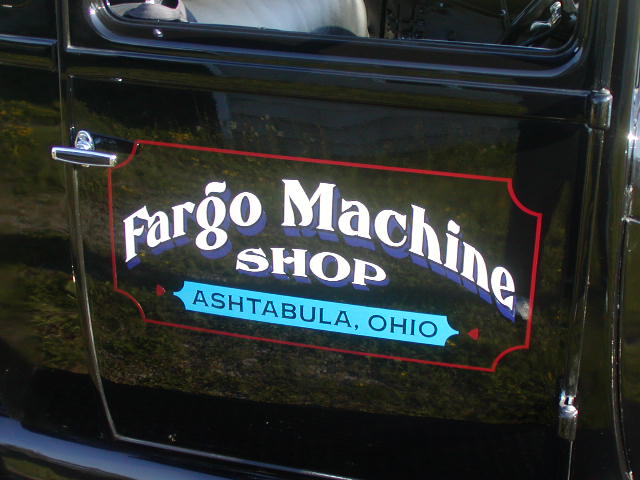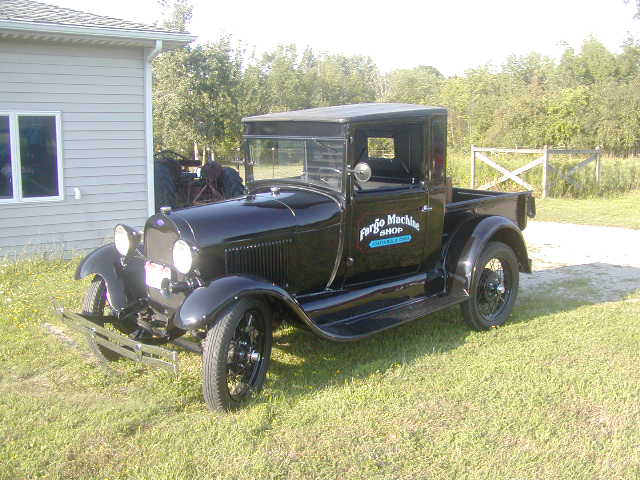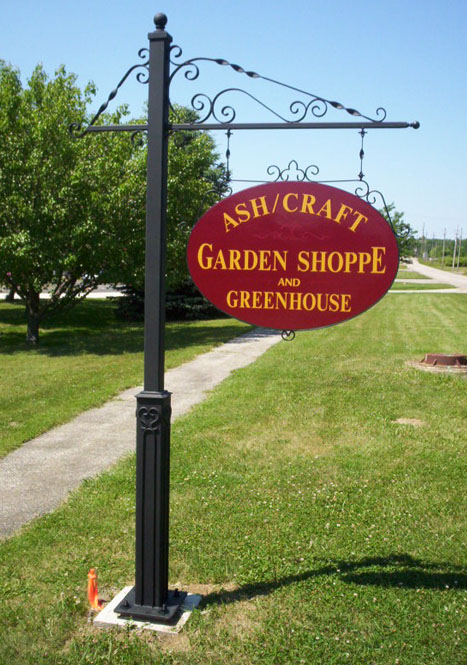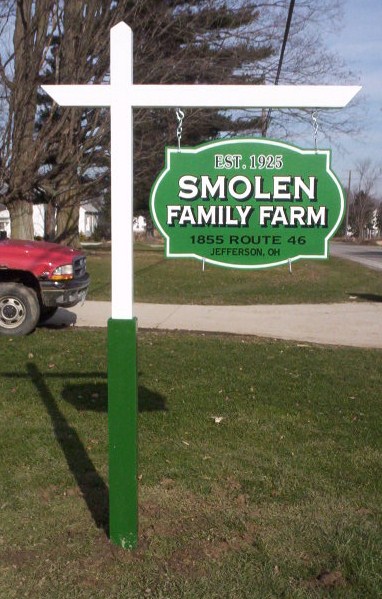
Wanted to say Hi to all... been reading thru this forum from the last page over the past few days. I got to the first the other day and signed in. Seems I was kicked out for not adding IM... Sorry Mike. I really like all the glass work and chipping and will most likely have some questions regarding that.
Anyways a little about me. I've been dragging paint around into recognizable shapes since the 80'ies. Most of my work is commercial in nature. Here is a little Ford truck I lettered in the summer. The first time I seen it it had vinyl stuck to the doors and a poor job at that and mentioned it was a shame to have done that. The owner spent the winter refinishing it and called for a sign to be painted. I retro'd his logo to fit 29 and painted with 1 Shot... took a couple of hours to complete. Owner was more then happy.
I also do a bit of Iron work. This job came about from an 1865 fence duplication/restoration for an expansion of local Cemetery. The sign was installed last spring it's painted and the post I built from steel. The sign has a hand forged steel band the wraps it and scrolling welded to it. I fabricated every piece but the top cap and ball.
Keep posting your work and keep y'er brushes oiled!
Anyway here is a little sign I did. Nothing compared to what others have posted but still a fun little job.
1/2 MDO cut out PT wood built up post.
Nice signs! 'Tight and right'!
FWIW...When ever I hang a swing sign I use clips that go over the edge of the sign and bolt through the face. I found them in an ad in sign craft mag years ago.
I did just that. U shaped hangers with thru bolts that are sleeved to stop any sawing action and a set under to hang smaller sale sign.
Just built to scale... Over the years I've seen to many nice signs with ugly hanging systems. It's like an after thought to some.